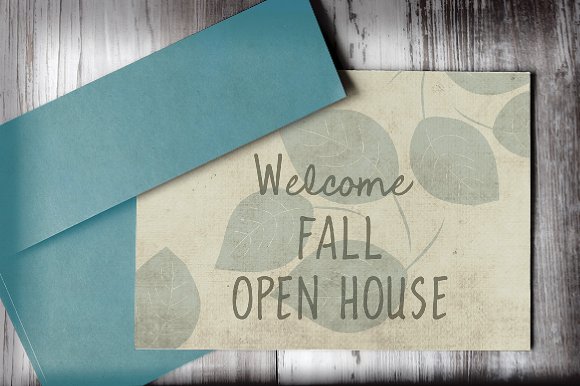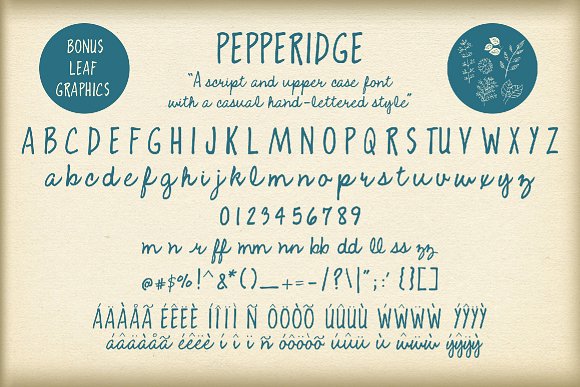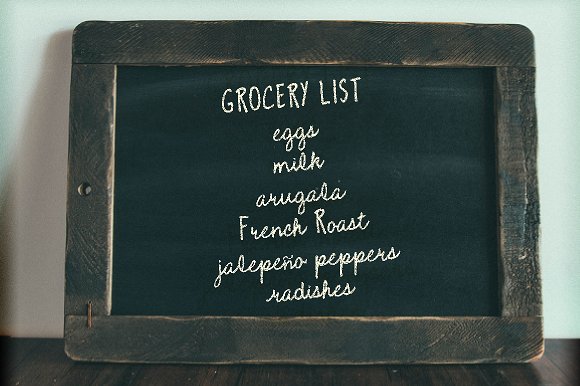
Pepperidge font
Pepperidge is a script and upper case font with a casual, hand-lettered style. Included are bonus vector leaf files in .eps format. With Adobe Illustrator, you may edit colors and manipulate. Please enjoy this casual art font and leaf vectors for your projects.